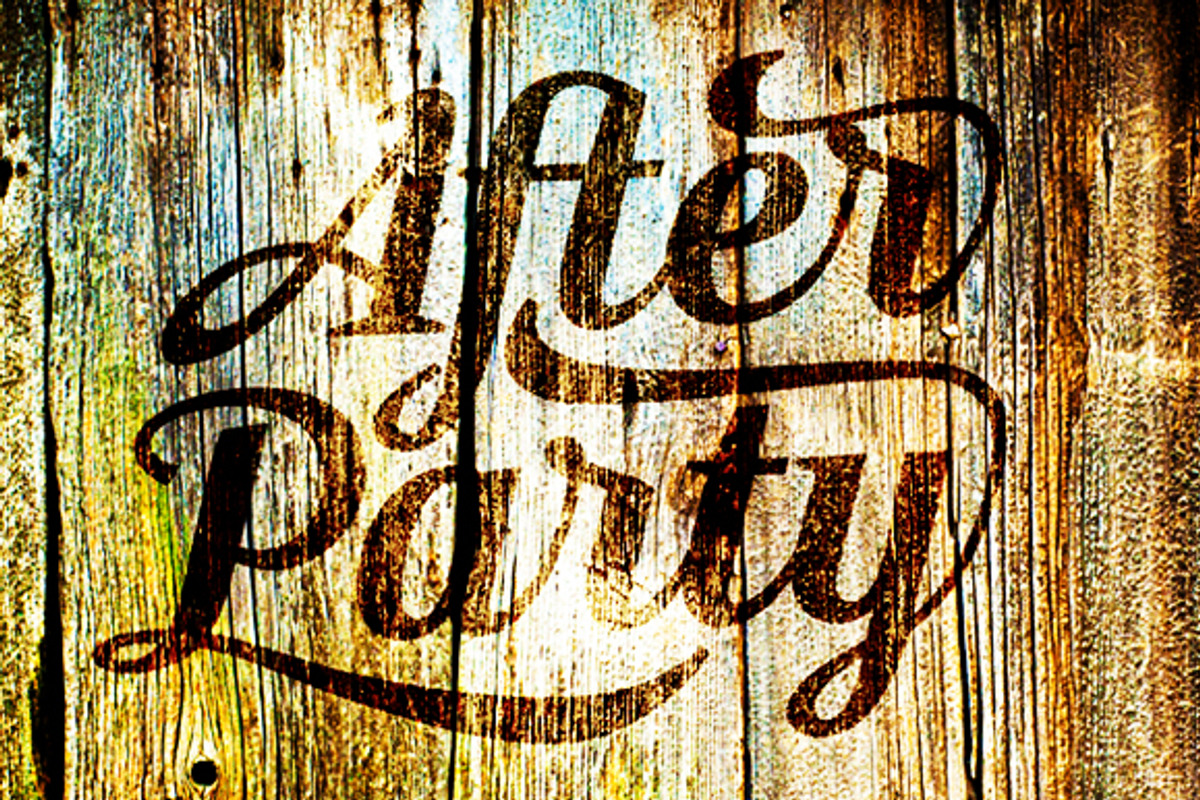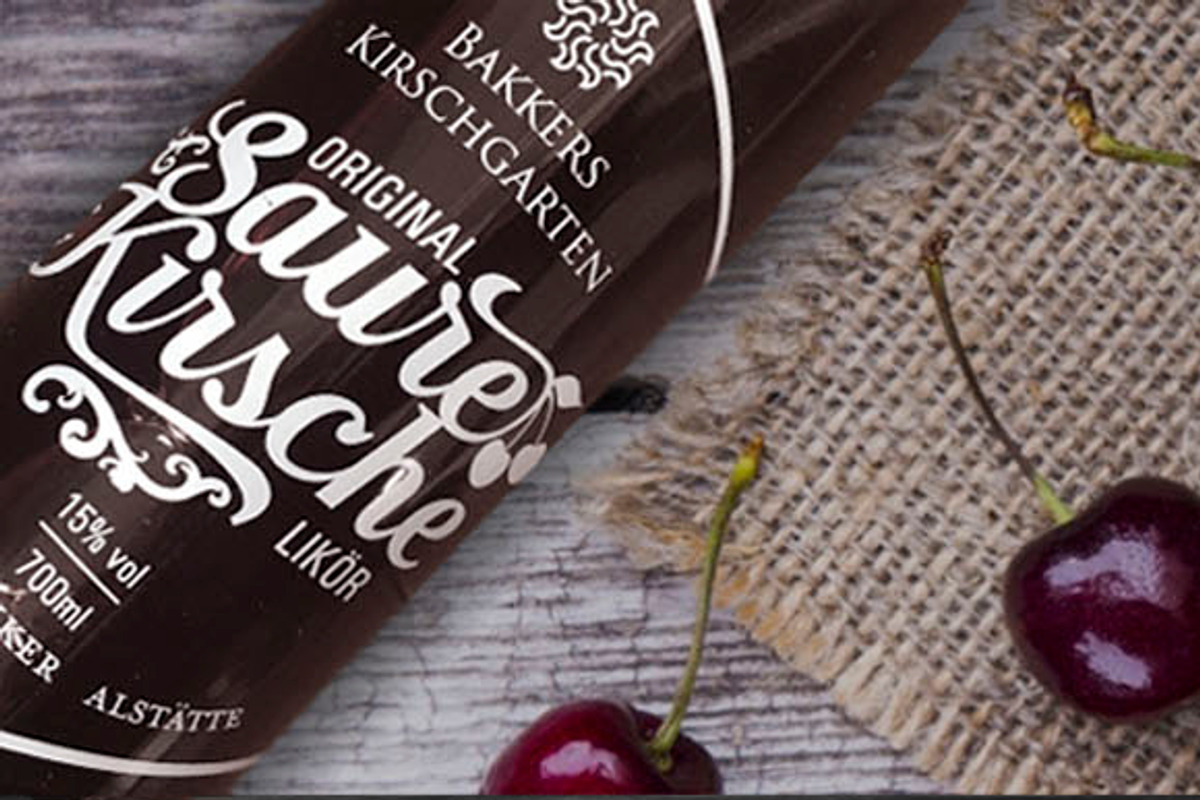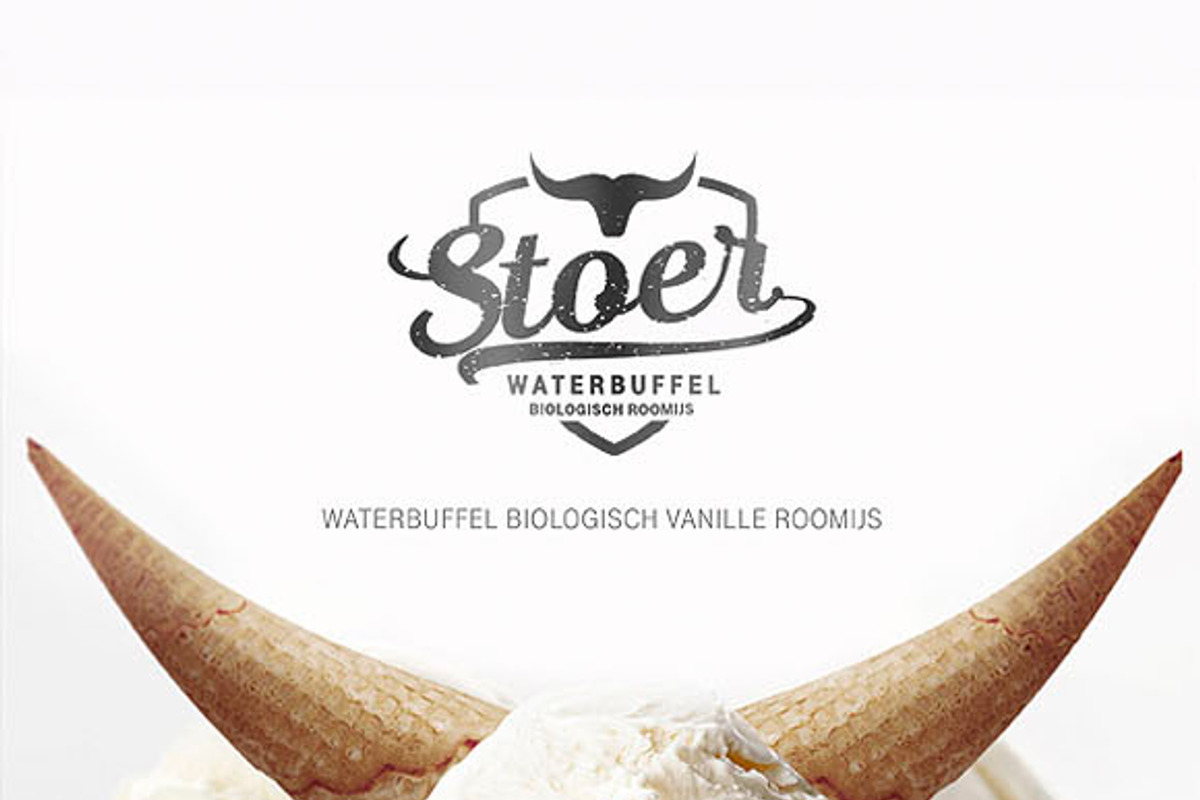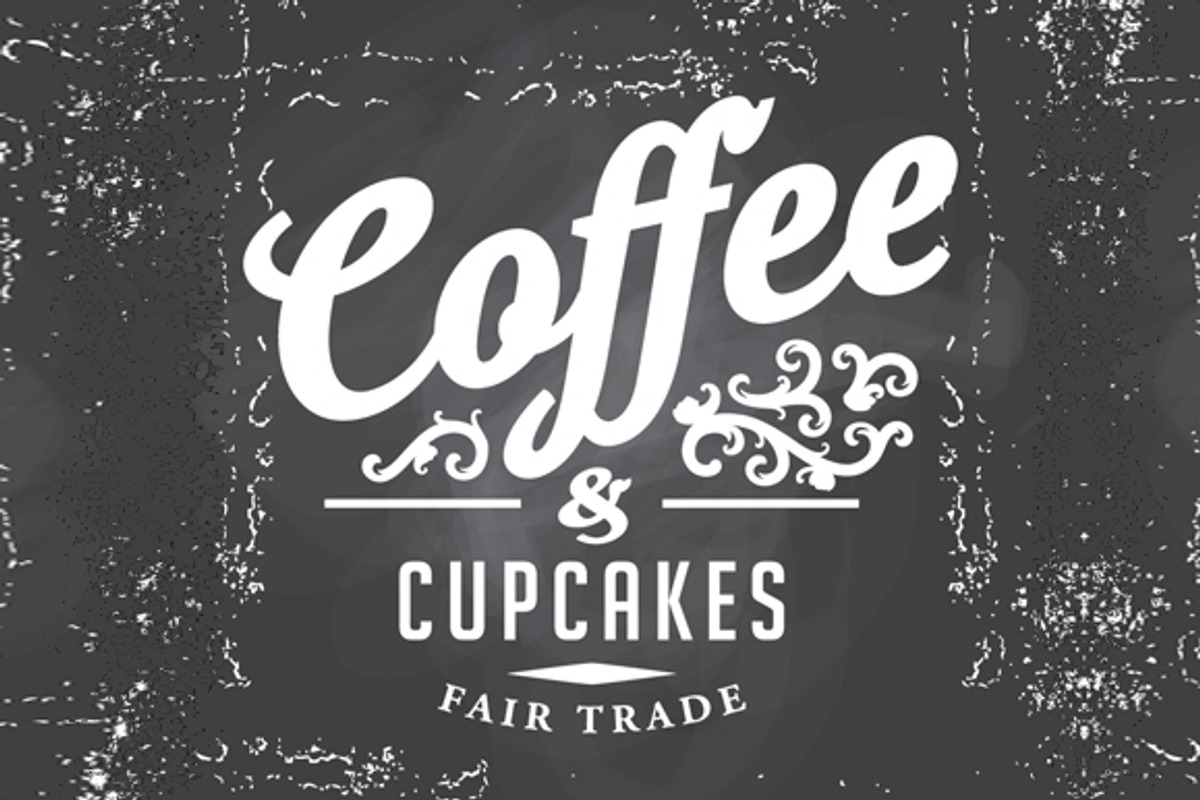
Moonface Script
Moonface Script by TypeFaith Fonts is a font selected for branding, posters, packaging, typography.
- It contains a full set of ligatures, alternatives, swashes and special characters to end.
Moonface Script by TypeFaith Fonts fits naturally into Branding, posters, packaging, typography.